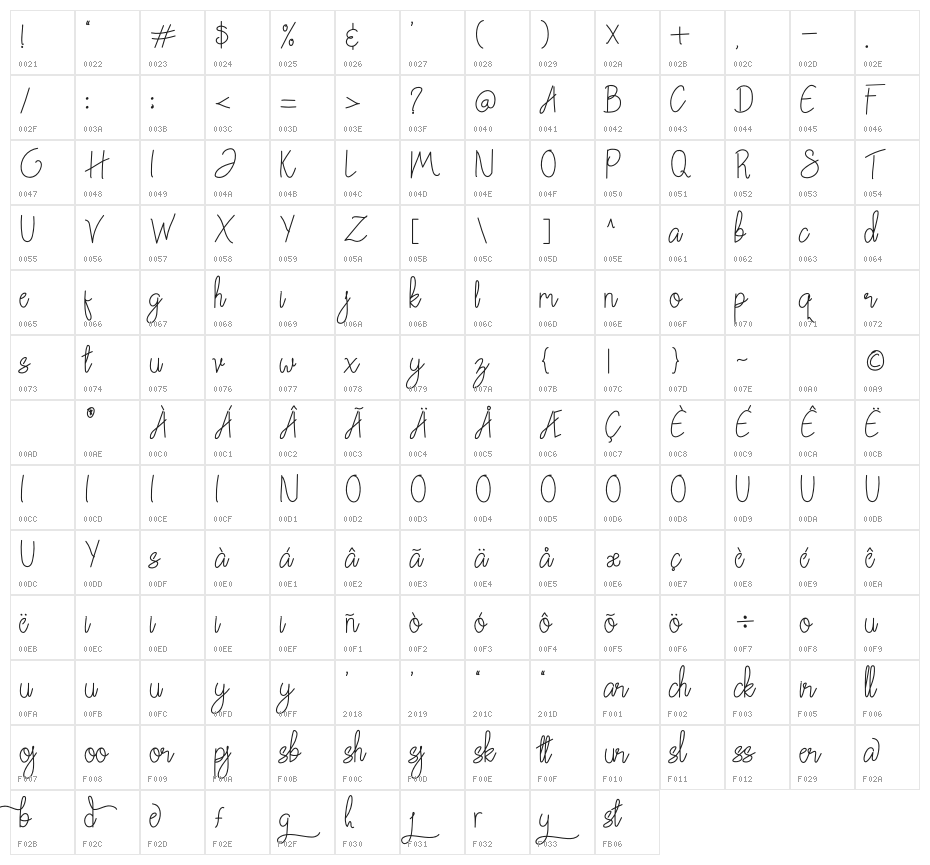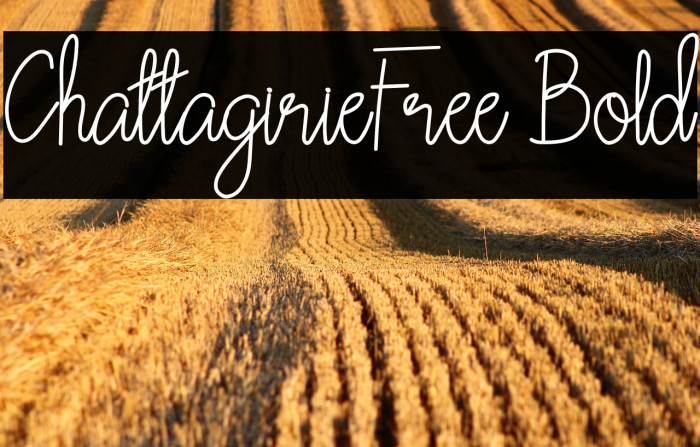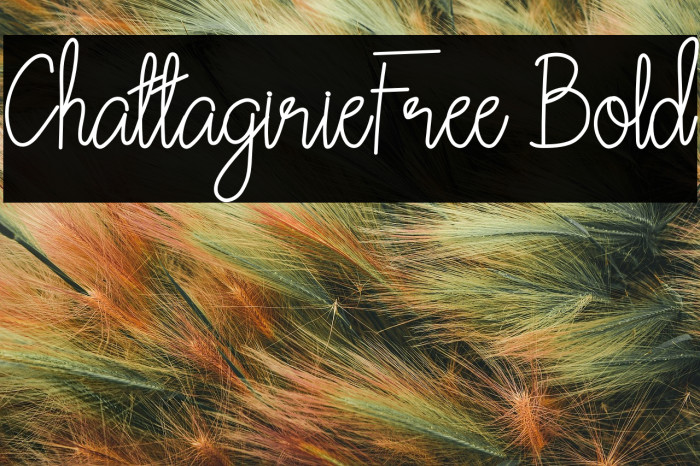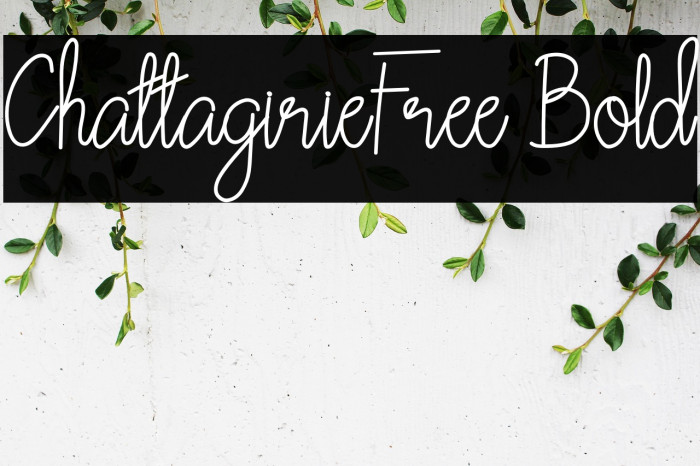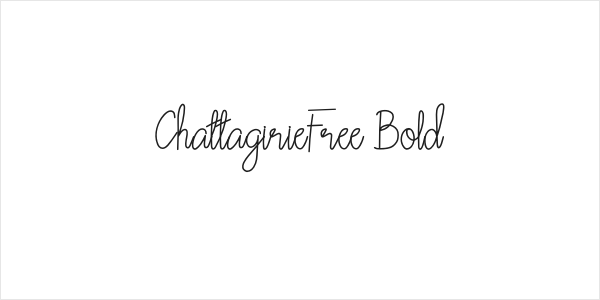
ChattagirieFree Bold Font
ChattagirieFree Bold Description
A playful, handwritten script font with a casual and flowing style, featuring connected letters and a natural, informal appearance.
| Overall Style | Casual, Informal |
| Use Case | Logos, Invitations |
| Proposed Projects | Greeting cards, invitations, personal branding. |